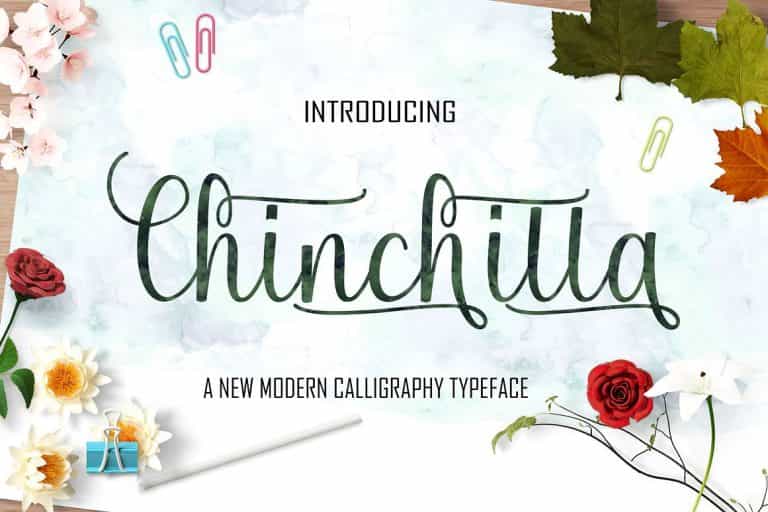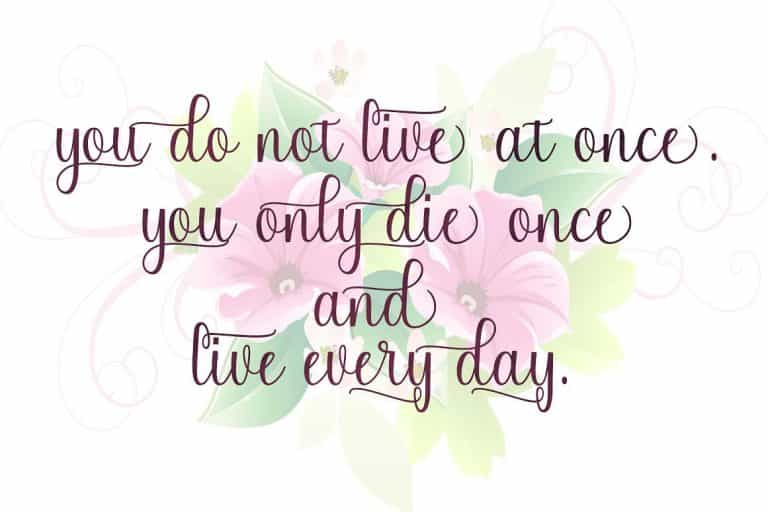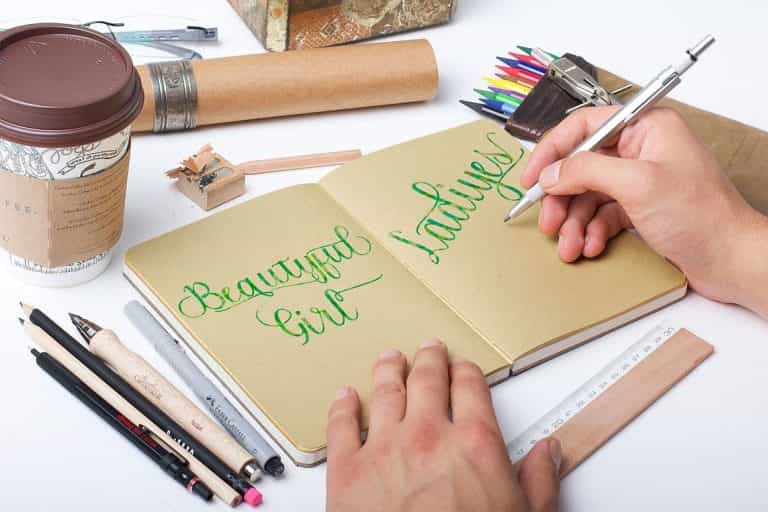
Discover Chinchilla Script Font, part of the Calligraphy collection—a versatile and unique font perfect for adding a personal touch to your projects. Download it for free and enjoy crafting designs with style, from invitations to social media posts. This font is available exclusively for personal use, giving you the freedom to create without limits. Unlock your creativity with Chinchilla Script Font today!
Introducing Chinchilla Font. It is a product made and distributed by JoeeCreative. Chinchilla Modern Calligraphy. This font was made by human handwriting, and it has a modern and special forms of calligraphy, the writing style is very natural.